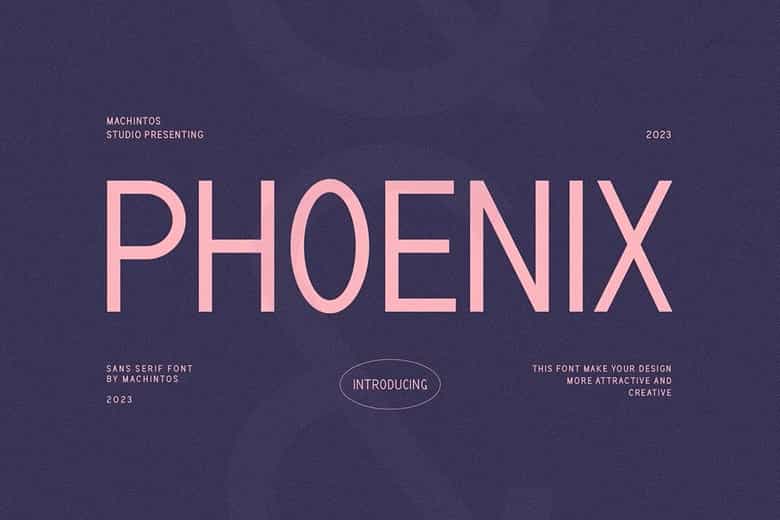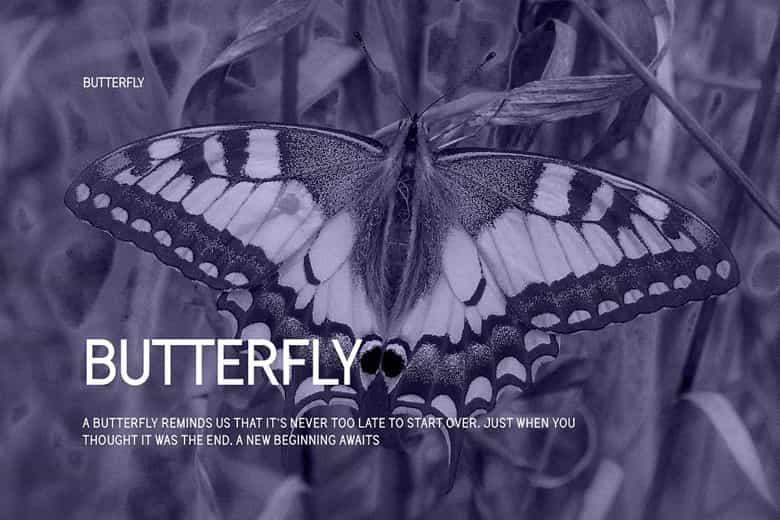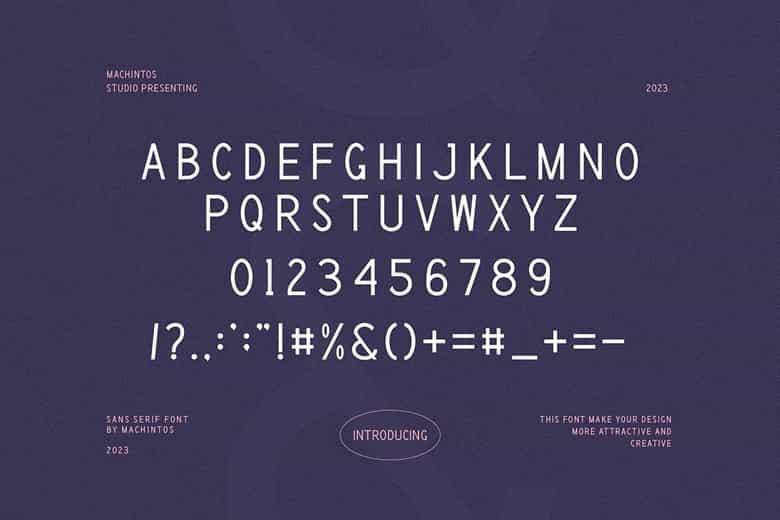
Phoenix is a forceful and daring sans serif typeface that is designed to make your headlines and logotype projects look elegant. This typeface is firm, assertive, and energetic and can deliver a lot of nostalgic flavoring to your layouts.